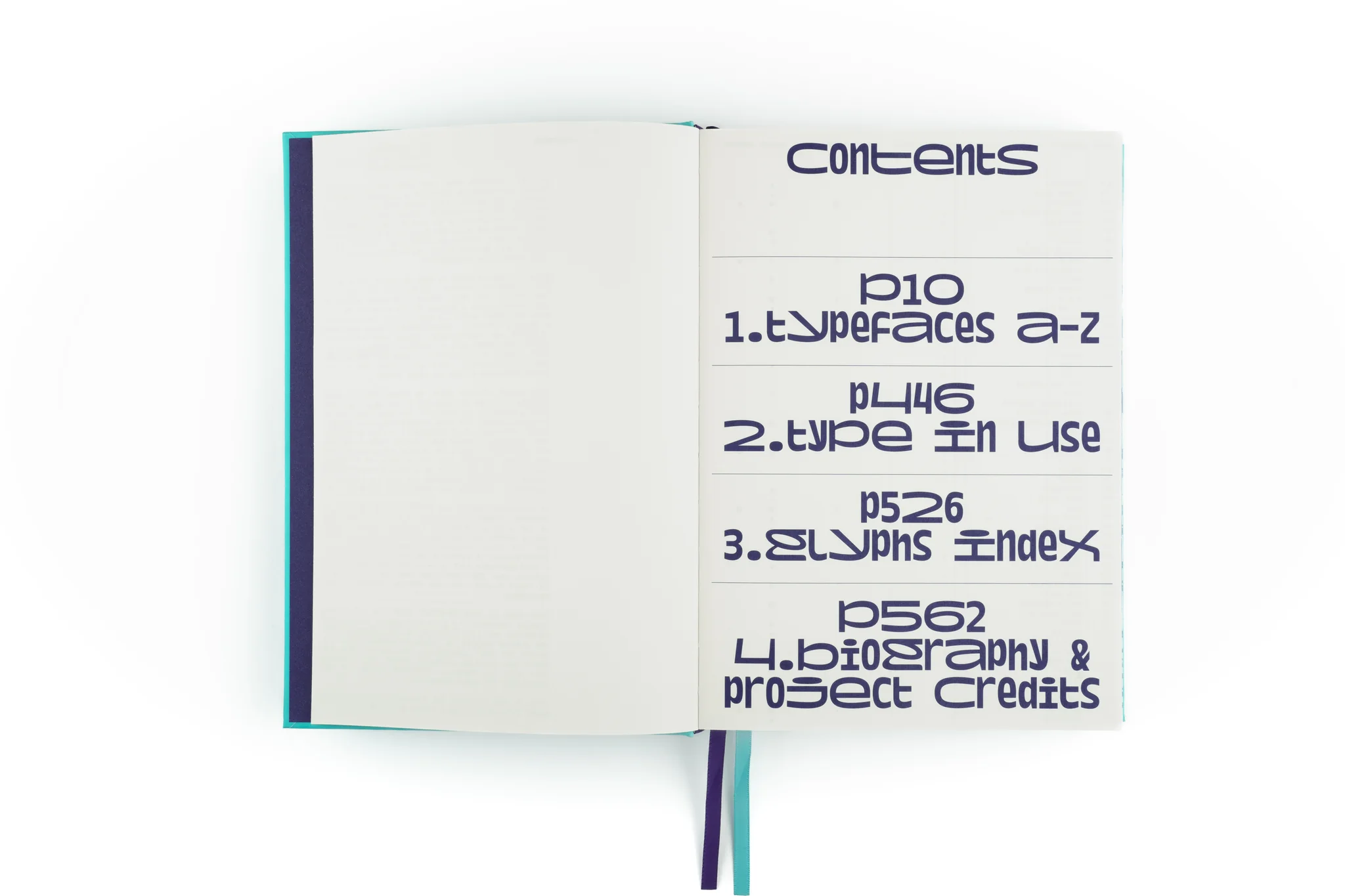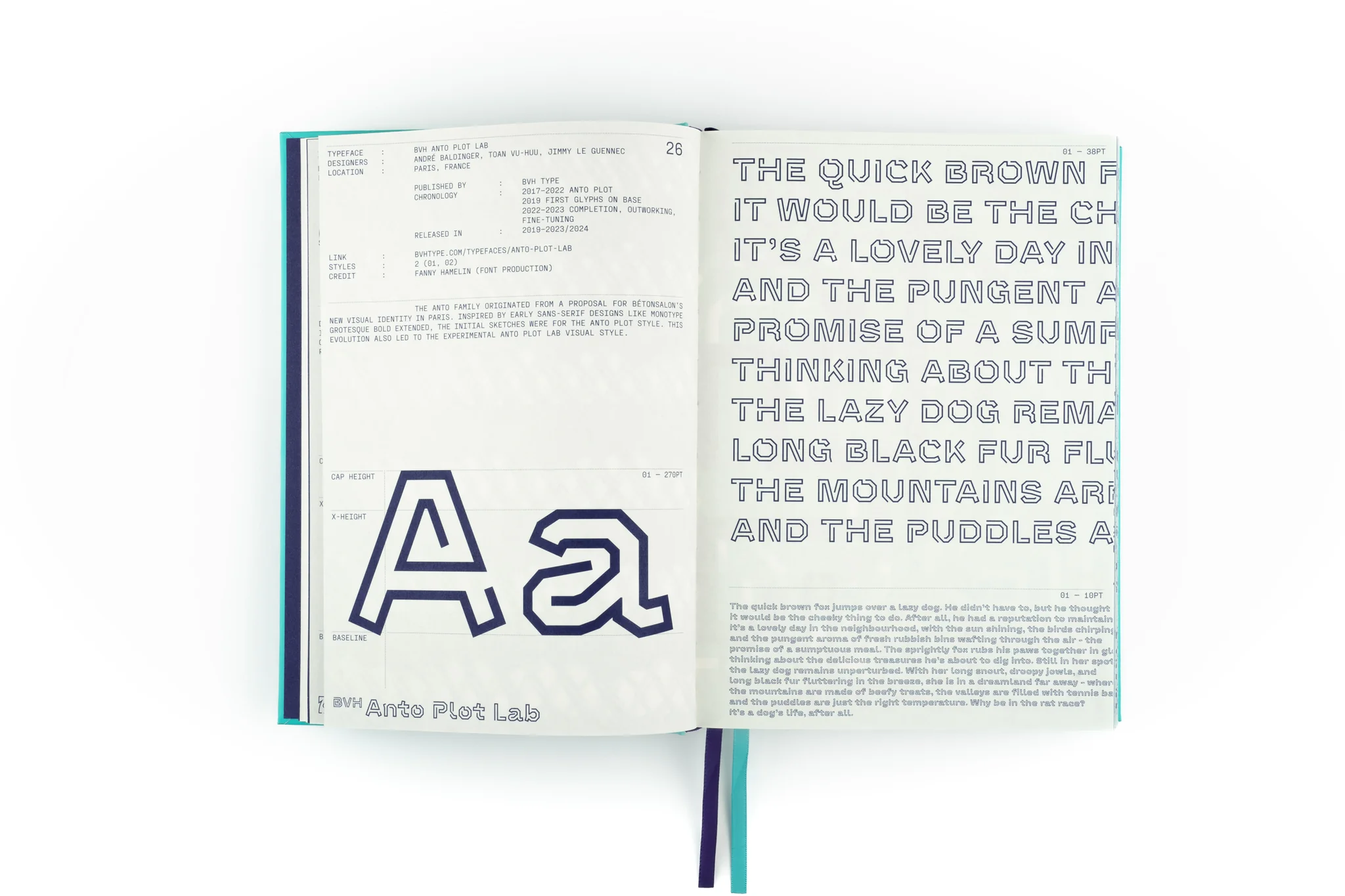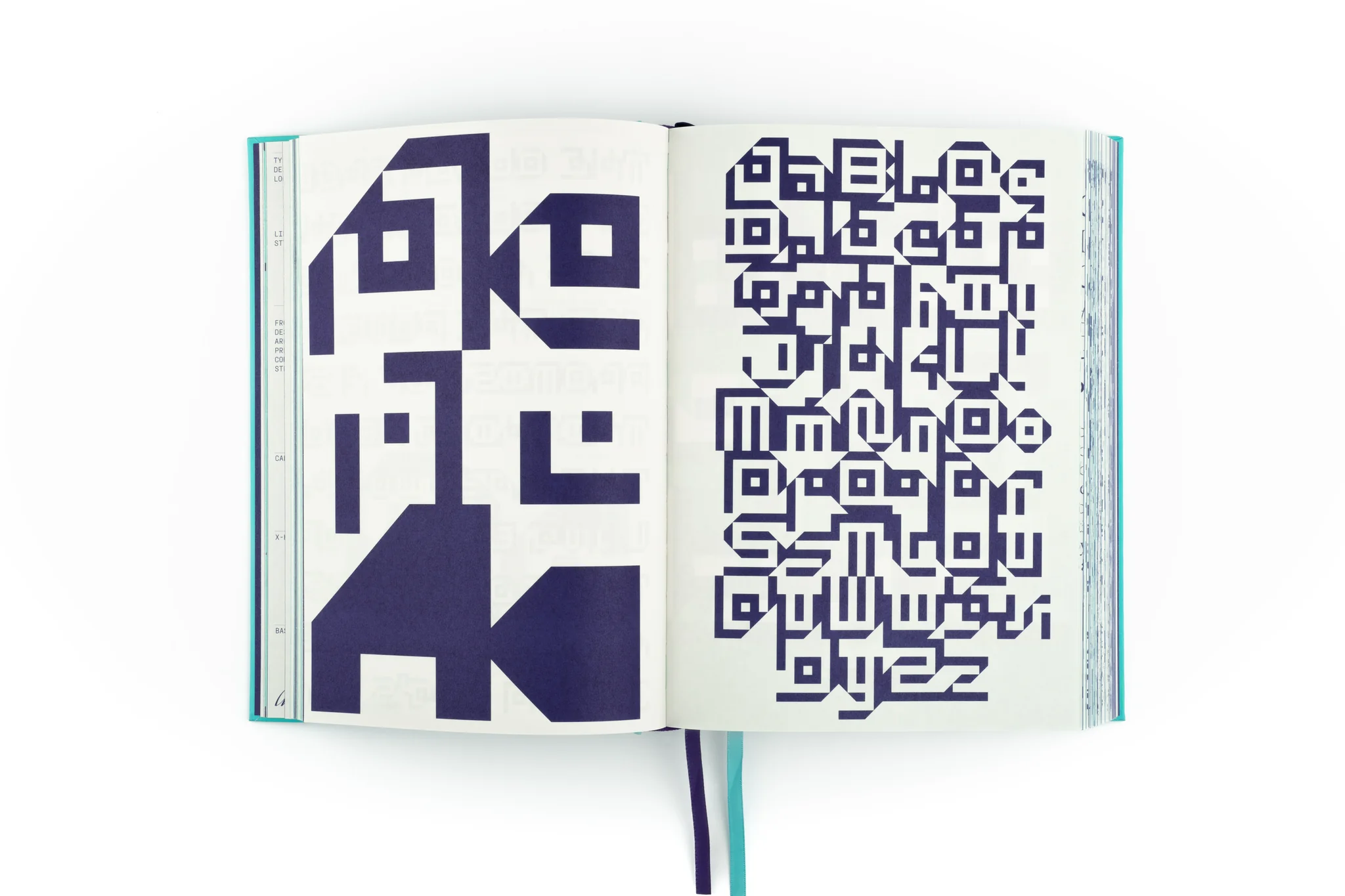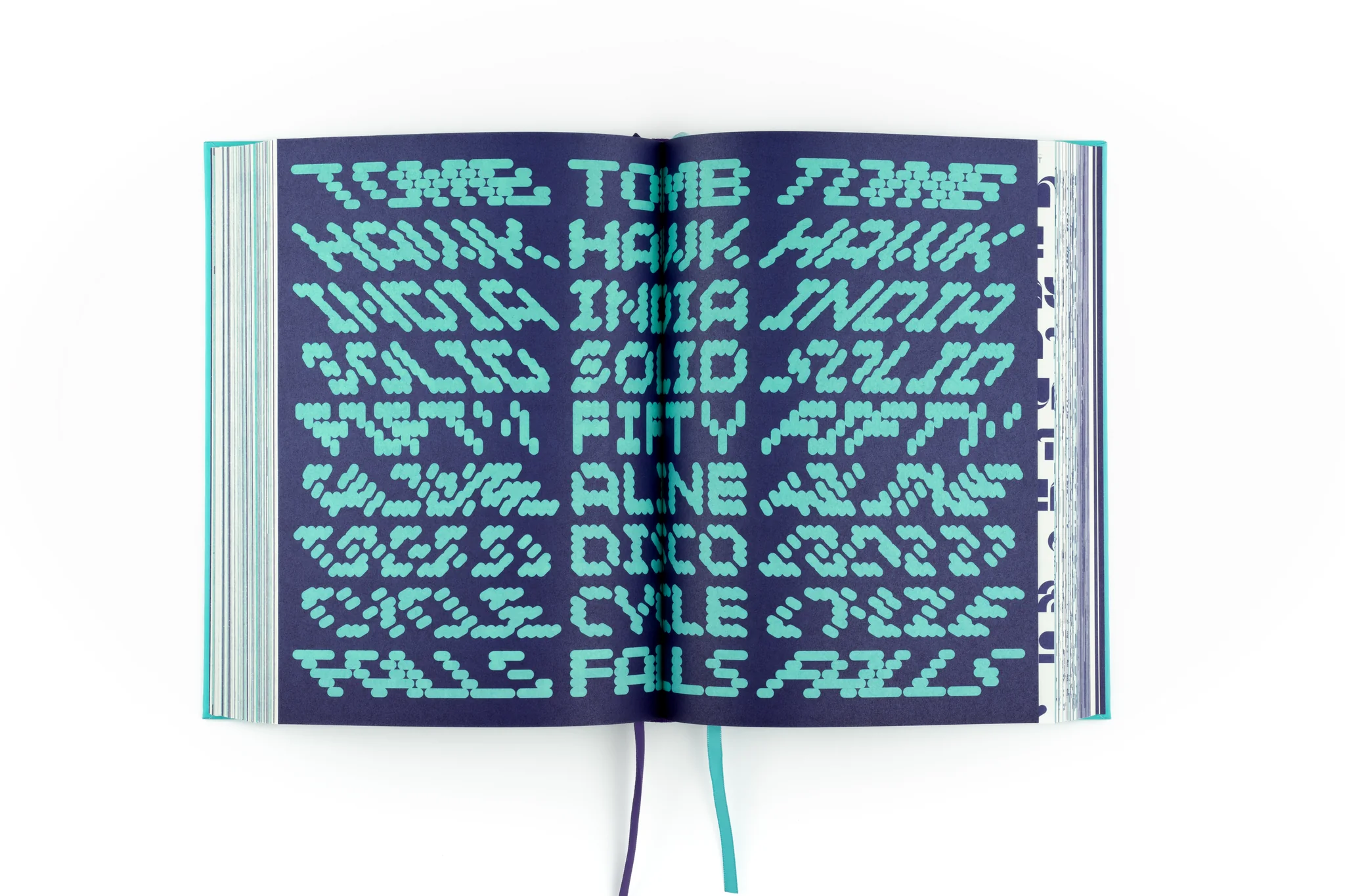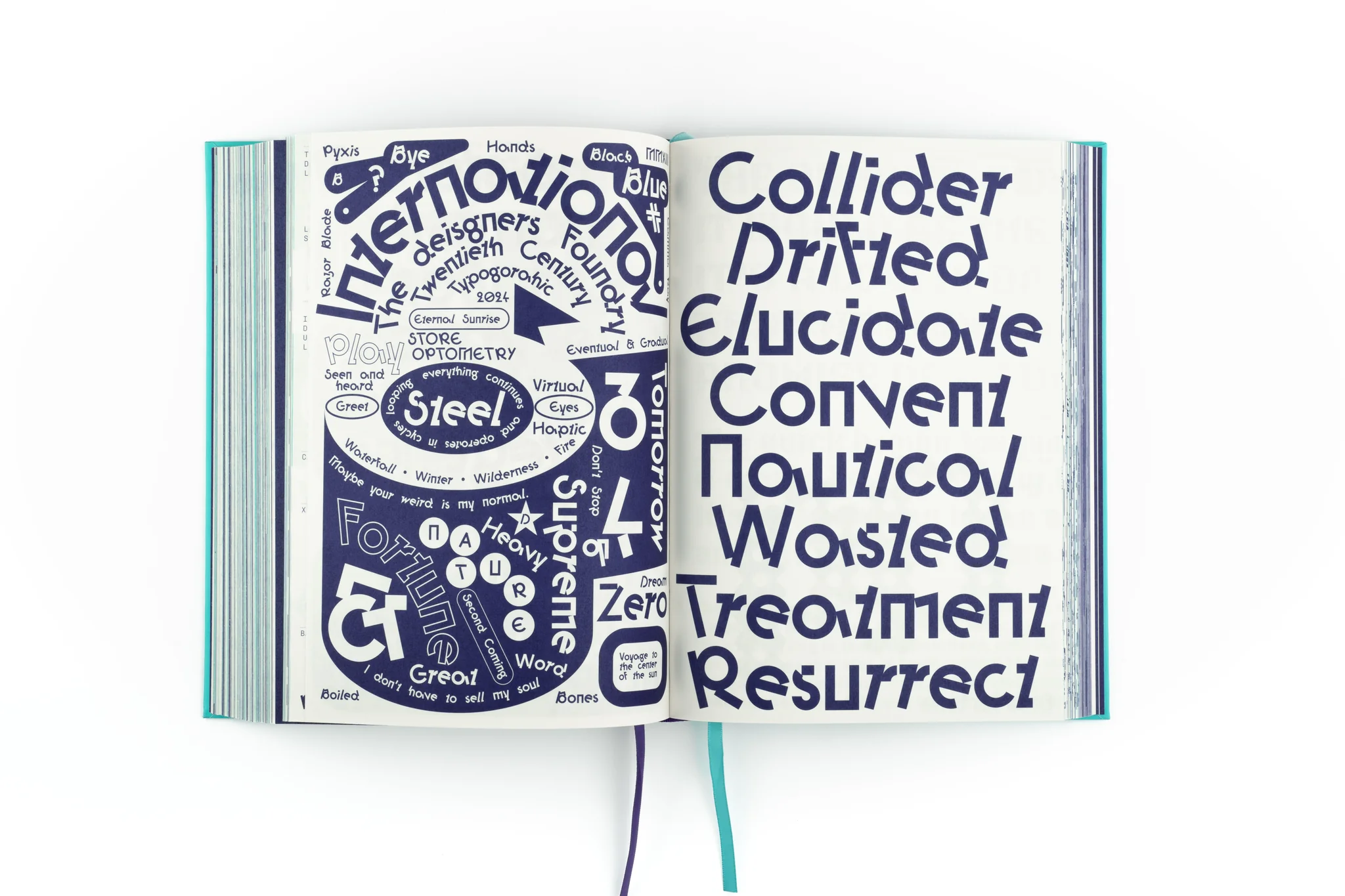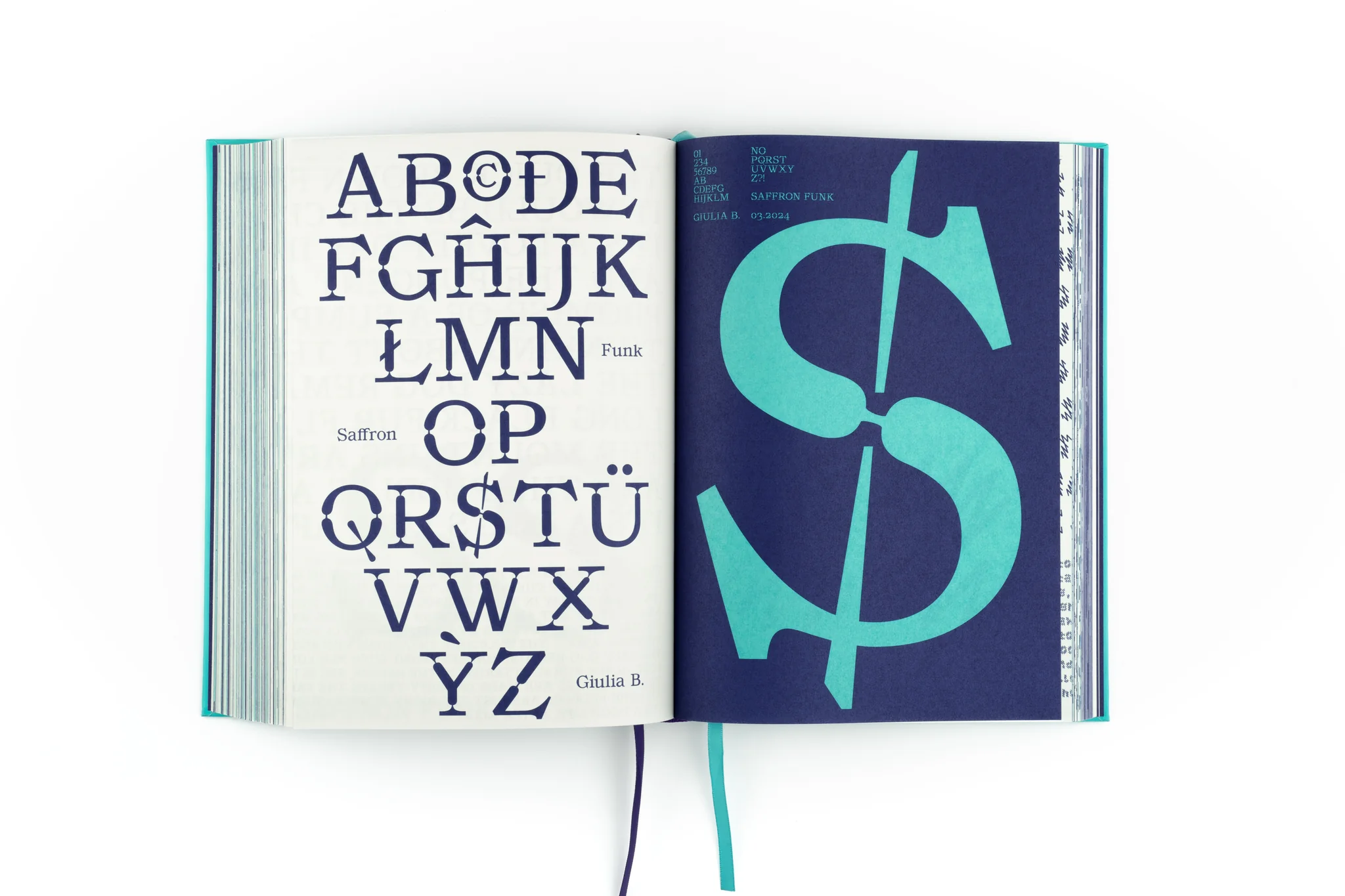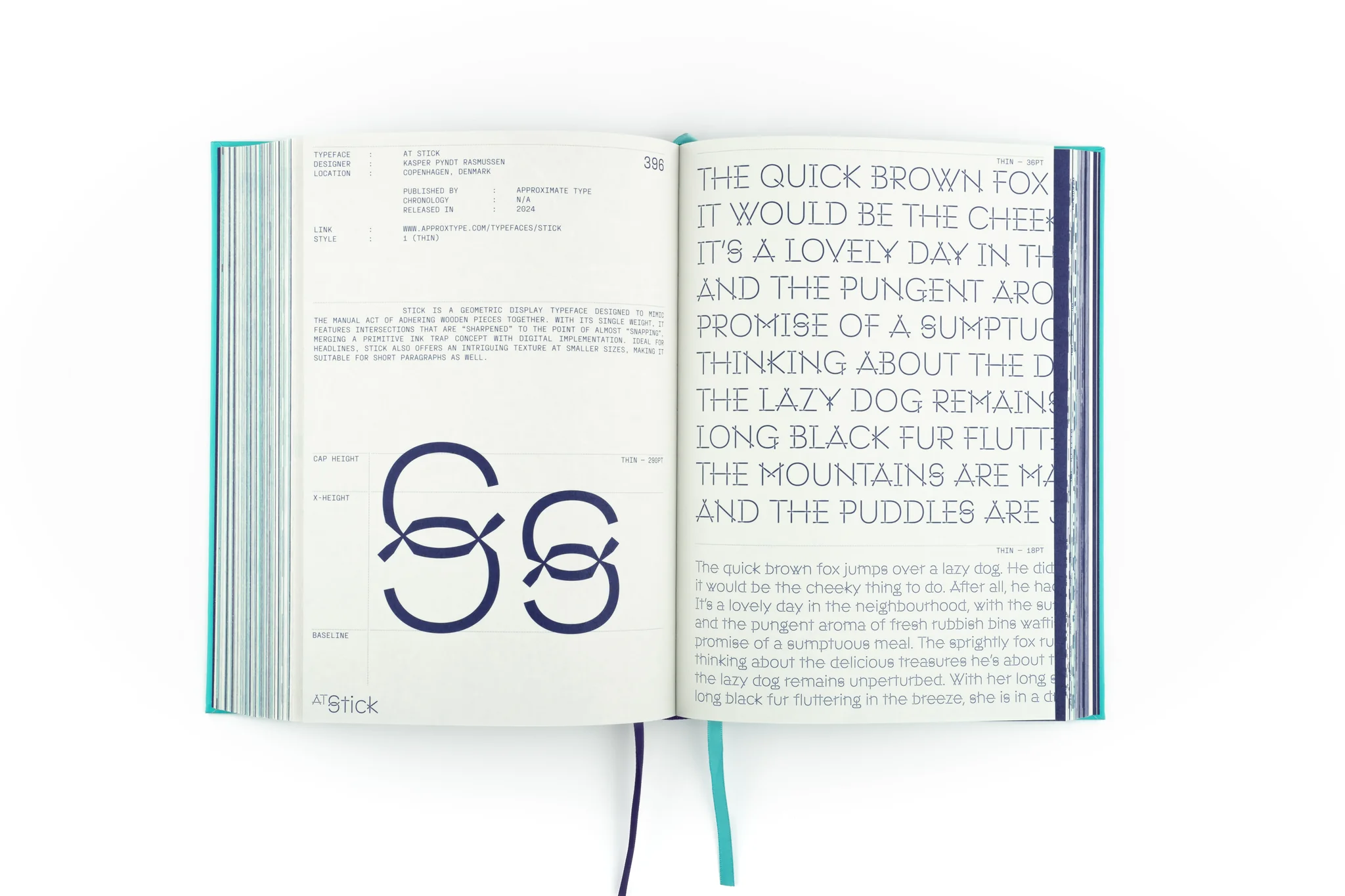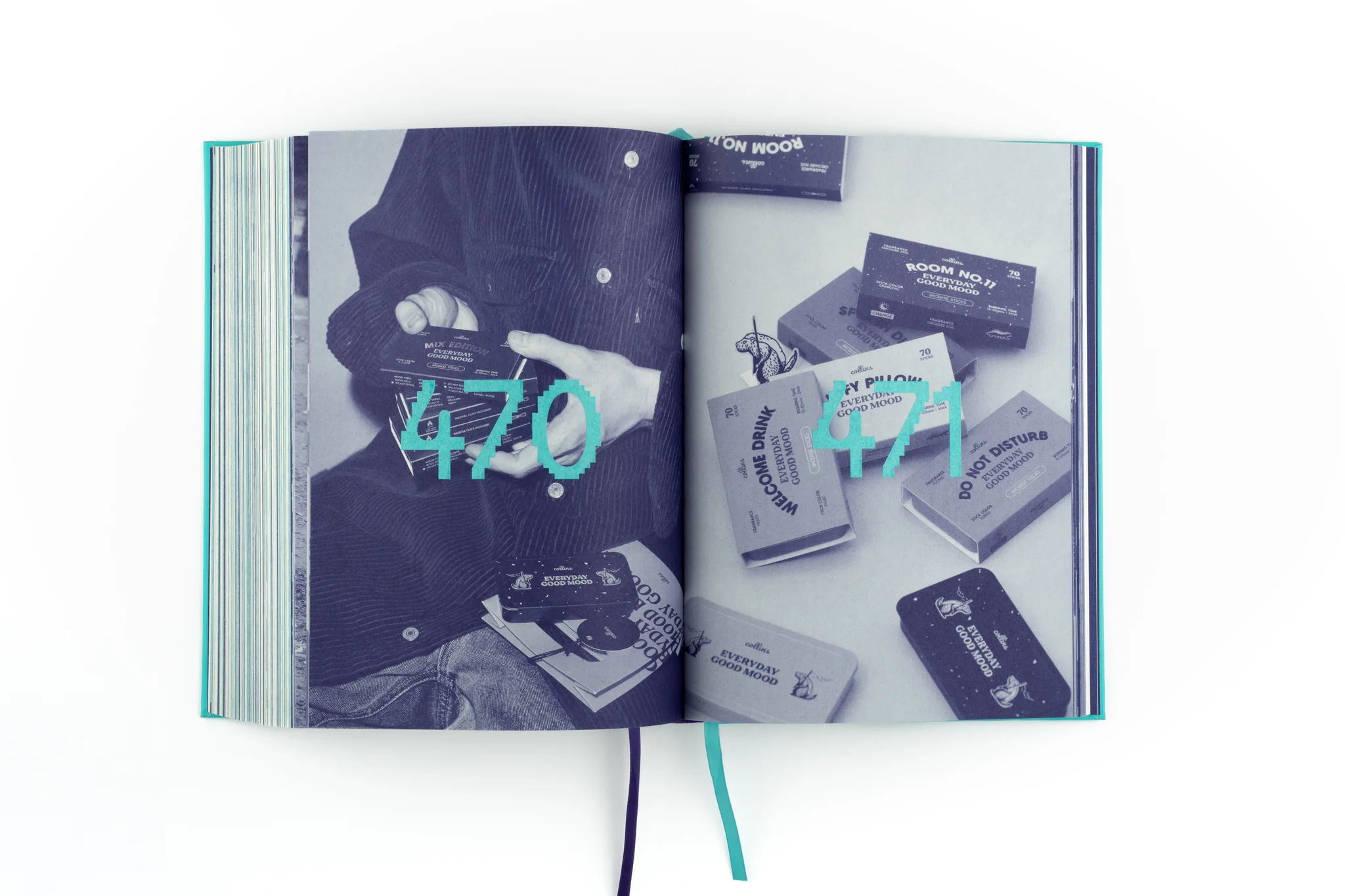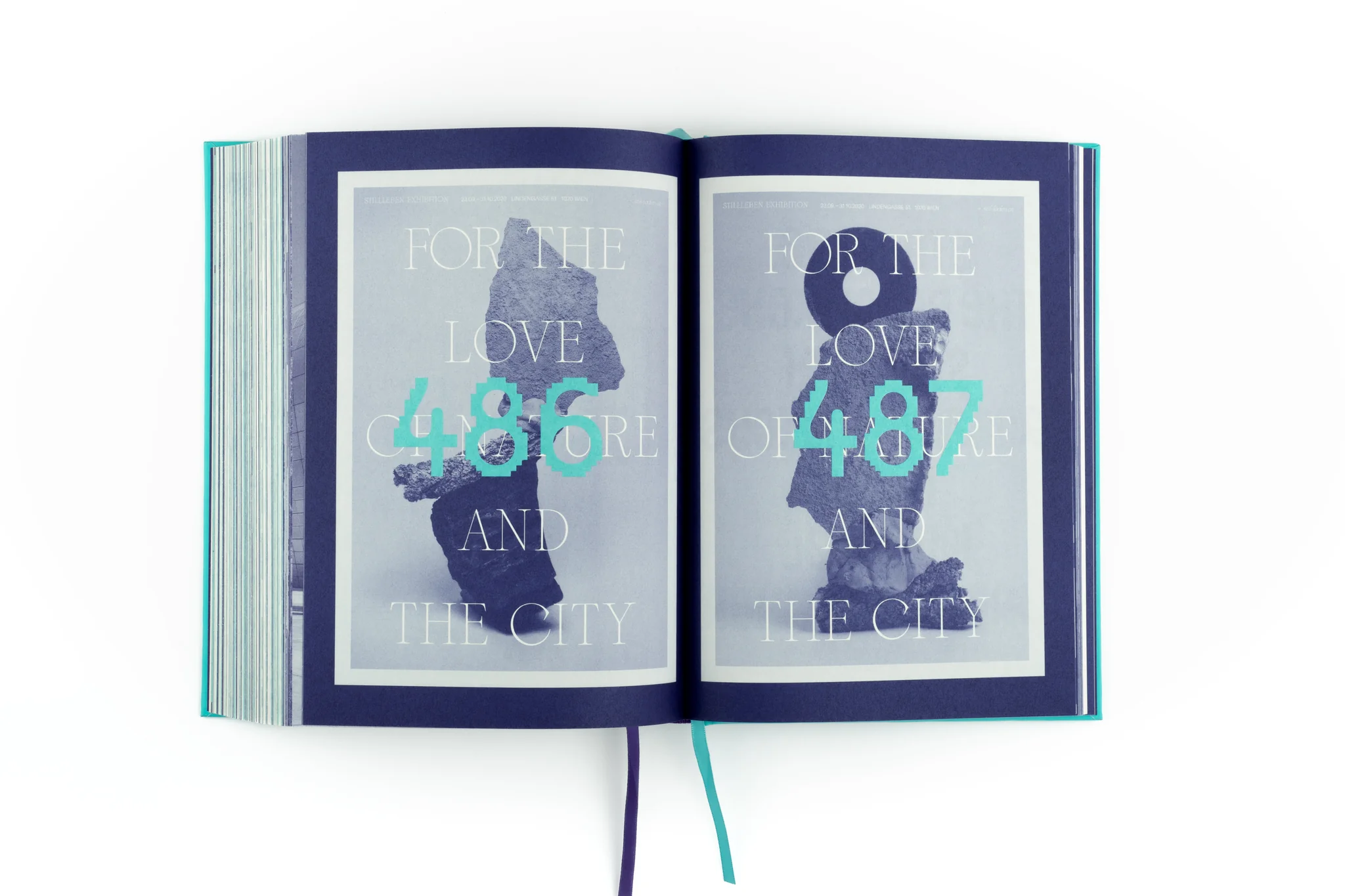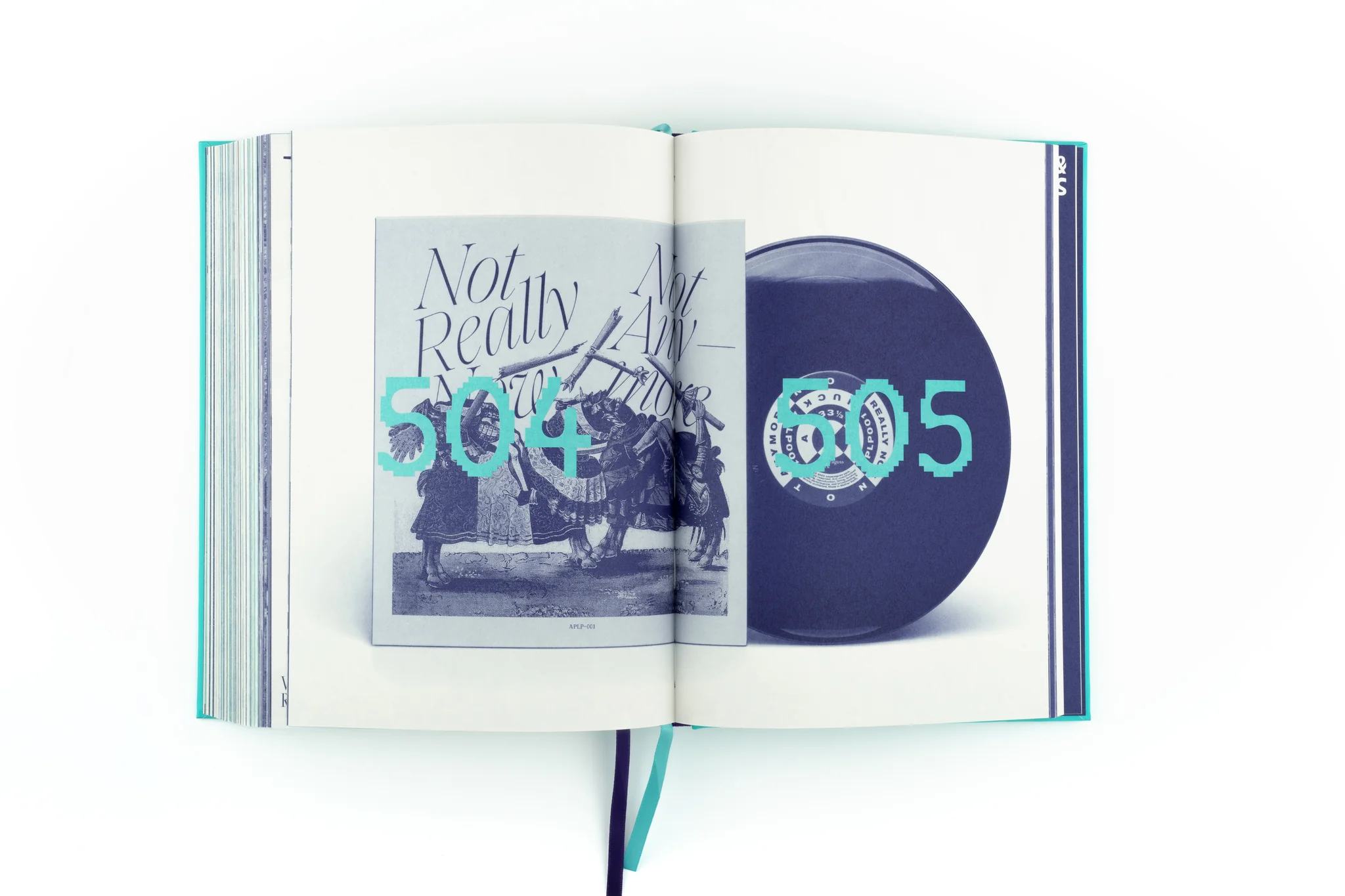
Display In Use— A Collection of Display Typefaces
Display In Use — A Collection of Display Typefaces
Renowned for their bold and attention-grabbing nature, display typefaces are often used by brands aiming to stand out in a competitive market. These fonts feature intricate details, expressive styles, playful elements, and a wide range of weights, making them highly adaptable across various design contexts—from print to digital media—seamlessly integrating into different creative fields. Display typefaces also play a crucial role in shaping a brand’s personality and making a strong first impression.
As a continuation of the Sans/Sans Serif In Use series, this volume presents a curated selection of display type specimens, their real-world applications, and the design thinking behind them. Display In Use compiles outstanding typefaces designed for large-scale formats and serves as an inspiring reference for designers and typographers alike.